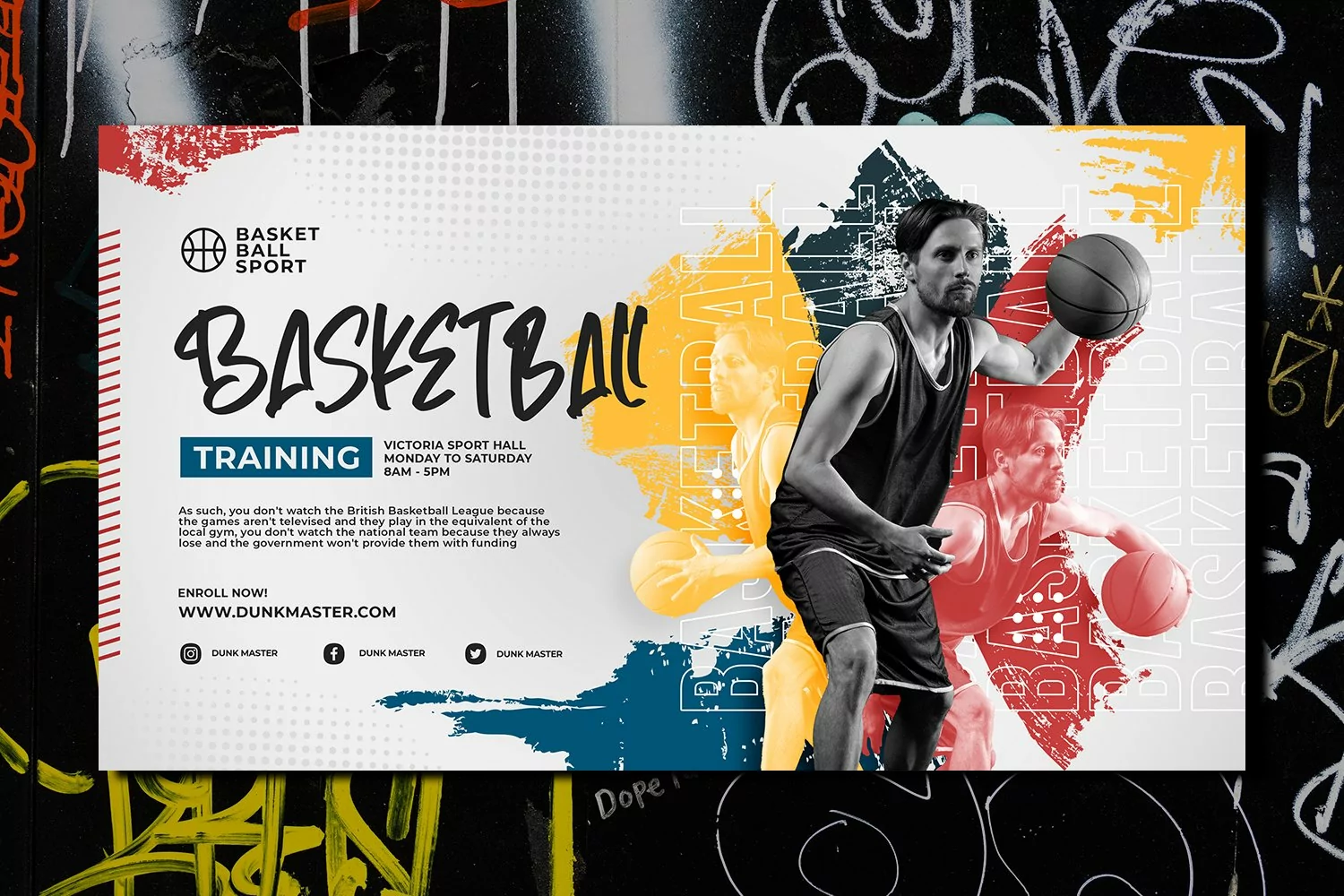
TheGraffiti - Modern Fancy Font that contain lowercase, uppercase, symbol, and also support multi language. There’s a lot ligatures in this font. This Font also comes with ligatures, alternates and many more. this font suitable for fashion, branding, catalog and other design what you want.